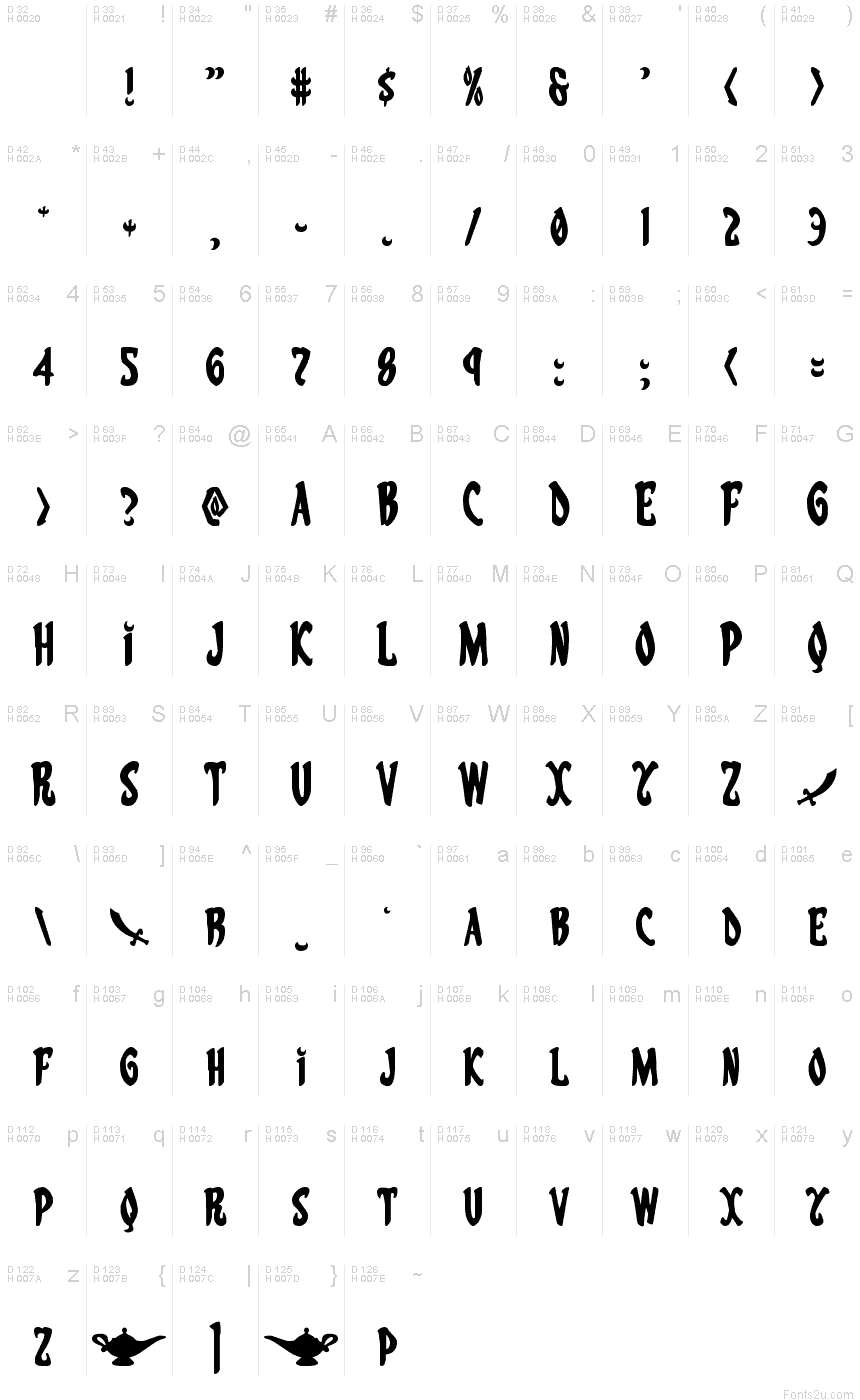
Eskindar by Iconian Fonts is a free Arabic-inspired display font with tall, tightly packed letters and a lively, uneven silhouette. Rounded solid forms taper into sharp points, giving the lettering a theatrical, hand-cut look.
Arabic-inspired styling makes it well suited to adventure posters and themed event graphics. Its exaggerated shapes also suit game titles and entertainment packaging with a comic edge. Curved points and swelling strokes can echo ornamental borders or character illustration, making type part of the picture.
Presentazione e campione visivo del carattere Eskindar Regular
Mappa dei caratteri di Eskindar Regular
Mappa dei caratteri di Eskindar Regular: Latino di base, pagina 1
Glifi del carattere Eskindar Regular — Latino di base, pagina 1
Eskindar
Eskindar Regular
Eskindar